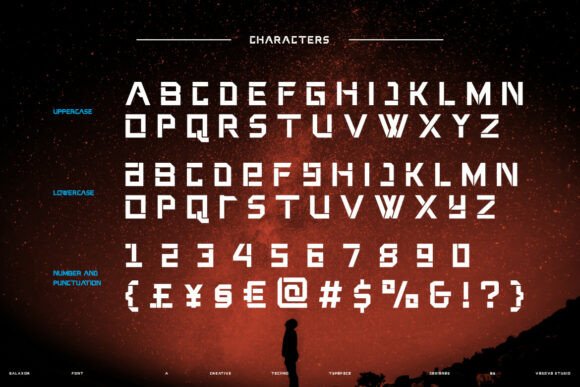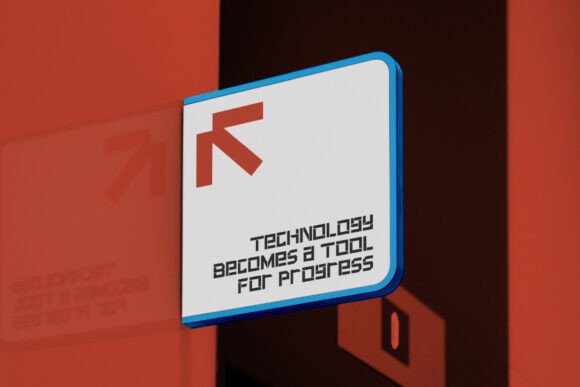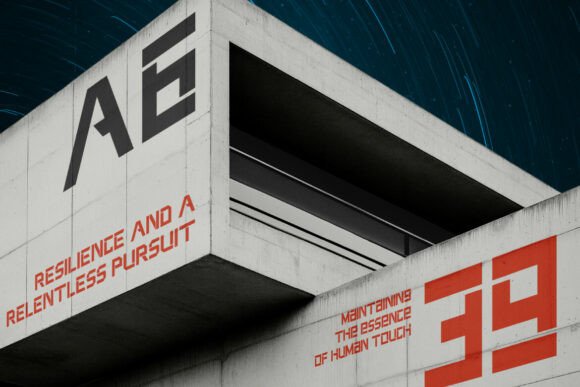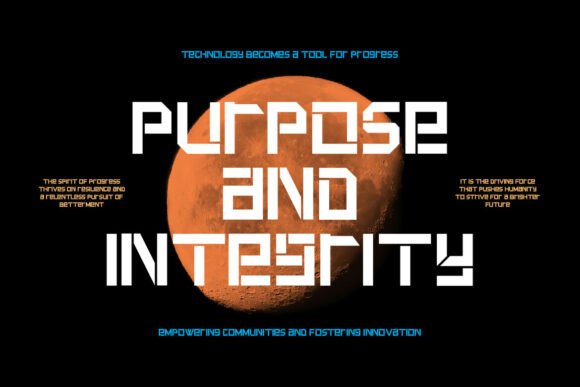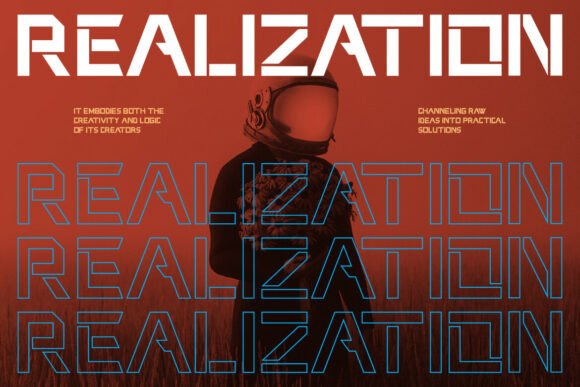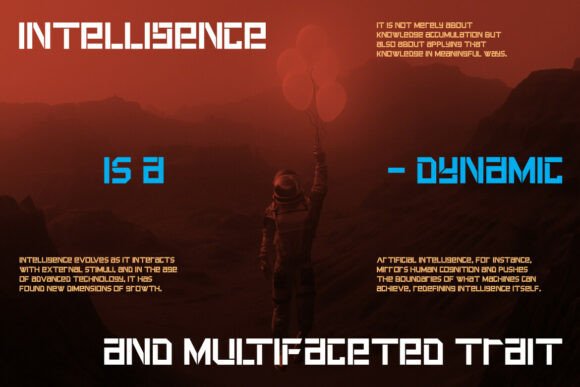
The Cosmic Typography of the Future
Have you ever stared up at the stars on a clear night, feeling the rush of imagination and possibility? For designers, that spark of creativity can be just the starting point for a new project. And when it comes to giving your design a truly otherworldly feel, one font stands out from the rest: the Galaxor Font.
This modern display font is a masterclass in futuristic design, with sharp geometric structures and a strong techno character that’s out of this world. Inspired by the thrill of space exploration and the cutting-edge tech of science fiction, the Galaxor Font brings a bold and digital aesthetic to your designs. Whether you’re working on a logo, headline, or branding project, this font is the perfect tool for creating a professional, innovative, and forward-looking tone.
For designers, the Galaxor Font is a valuable addition to any toolkit, offering a clean construction and consistent proportions that make it perfect for a range of projects. With its precise angular cuts and digital feel, it’s no wonder this font is a go-to choice for creatives looking to push the boundaries of design.
Galaxor Font Key Features
- Font Family: Galaxor comes in 3 font styles (Galaxor Regular, Galaxor Bold, and Galaxor Italic) to cater to various design needs.
- Character Set: Supports a wide range of languages, including Latin, Cyrillic, Greek, and many more, making it a versatile choice for global branding and design projects.
- Unique Characteristics: Galaxor Font features a unique blend of futuristic and cosmic elements, making it perfect for science fiction, technology, and space-themed designs.
Galaxor Font Review
As a designer, I was excited to dive into the Galaxor Font and see if it lived up to its intergalactic name. Here’s my honest review:
- The Galaxor Font has a unique, futuristic feel that’s perfect for sci-fi and tech-related projects.
- The font is highly customizable, with a wide range of options for adjusting the spacing, weight, and style.
- The font is well-suited for both digital and print applications, making it a great choice for a wide range of projects.
- The Galaxor Font may be a bit too bold for some applications, making it difficult to read at smaller sizes.
- The font may not be the best choice for projects that require a more subtle or elegant look.
Overall, I’d give the Galaxor Font 4 out of 5 stars. While it’s not perfect, its unique style and high customizability make it a great choice for projects that need a bold, futuristic look. Just be mindful of the potential limitations, and use it wisely!
For the best results, use the Galaxor Font in conjunction with bold and italic styles to create emphasis and contrast. Experiment with different font sizes and colors to add visual interest to your design.
The Galaxor Font is ideal for use in futuristic and sci-fi themed designs, such as video game packaging, movie posters, and space-themed websites. It can also be used for modern and tech-inspired designs, such as app interfaces and digital marketing materials.